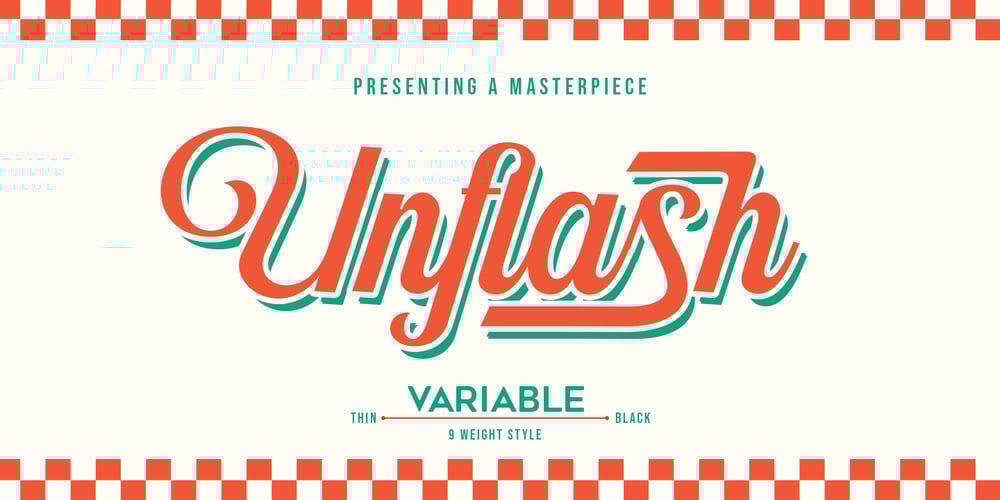
Unflash Variable Script
Unflash Variable Script font
Unflash Variable Script Font Family was designed by Rizki Andika and published by Letterfreshstudio. Unflash Variable Script contains 9 styles and family package options. Introducing Unflash Script- Font Family, a new curve that carefully crafted and balanced script typefaces with personality. You can use it as a logo, badge, emblem, packaging, title, poster, t-shirt/clothing, greeting card, wedding invitation, etc.Flowing characters are ideal for creating engaging messages. Mix and match Unflash Script- Font Family with a set of weights to suit your project.The alternative characters in this font are divided into several OpenType features such as Stylistic Alternates, Stylistic Sets, and Ligature. OpenType features can be accessed using OpenType programs such as Adobe Illustrator, Adobe Photoshop, and Adobe InDesign.